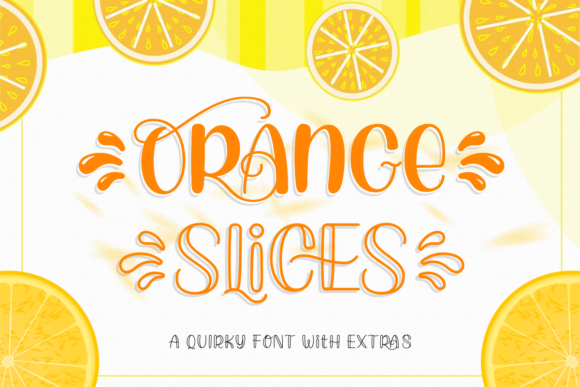
Ignite your creativity with Orange Slices Font, a whimsical and vibrant display font, meticulously crafted by Ghuroba Studio. Designed to elevate your designs with a touch of playfulness, this font boasts a unique personality that will make your projects pop.
Picture this: a font so merry and bright, it'll make your holiday cards the talk of the town. Orange Slices Font is the perfect companion for your festive creations, adding a layer of cheer and warmth to every design.
With its eye-catching charm, Orange Slices Font will make your designs shine. Its playful curves and quirky characters will add a touch of whimsy to your invitations, posters, social media graphics, and more.
Unleash your creativity and let Orange Slices Font work its magic. Whether you're creating holiday cards, party invitations, or simply want to add a dash of cheer to your projects, this font has got you covered.